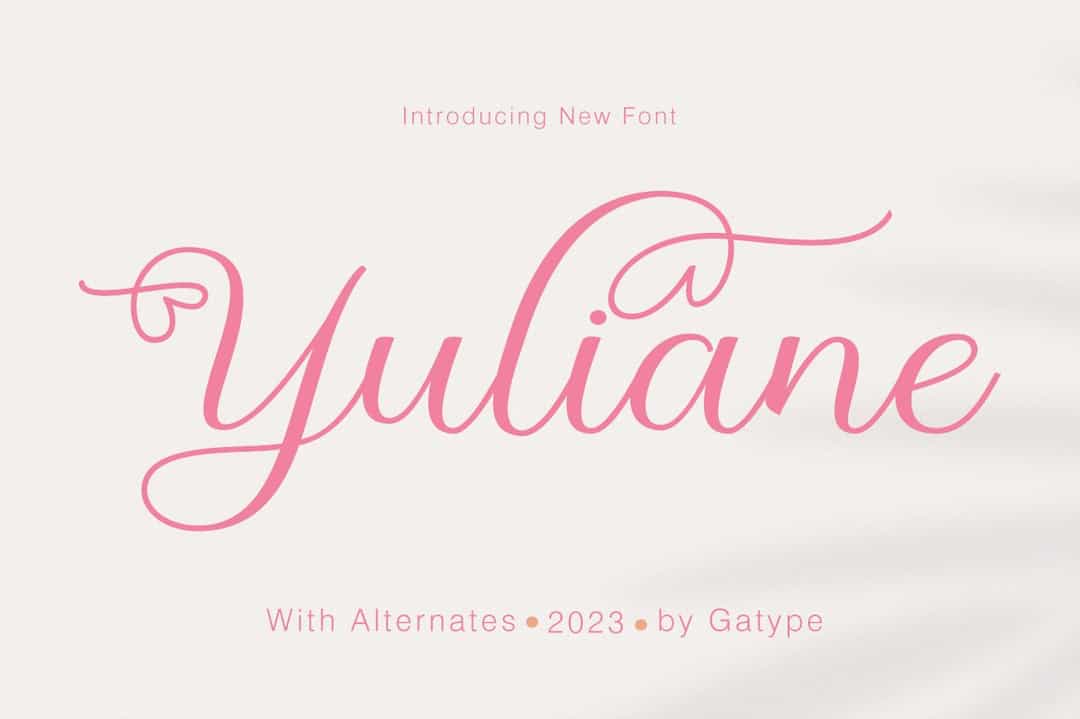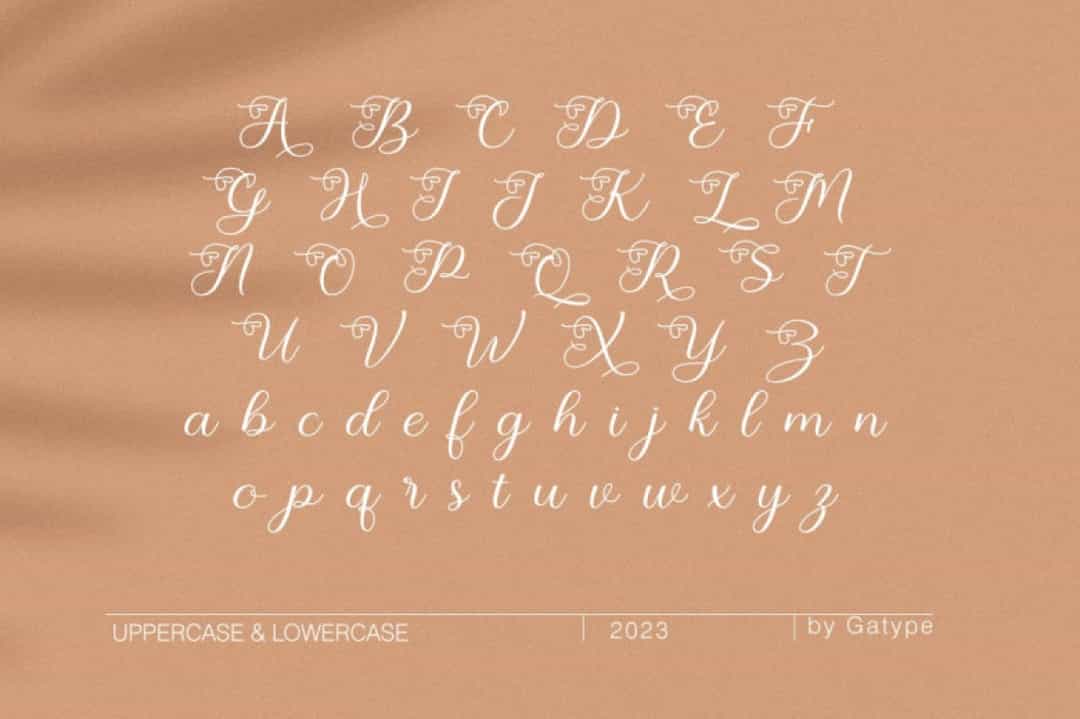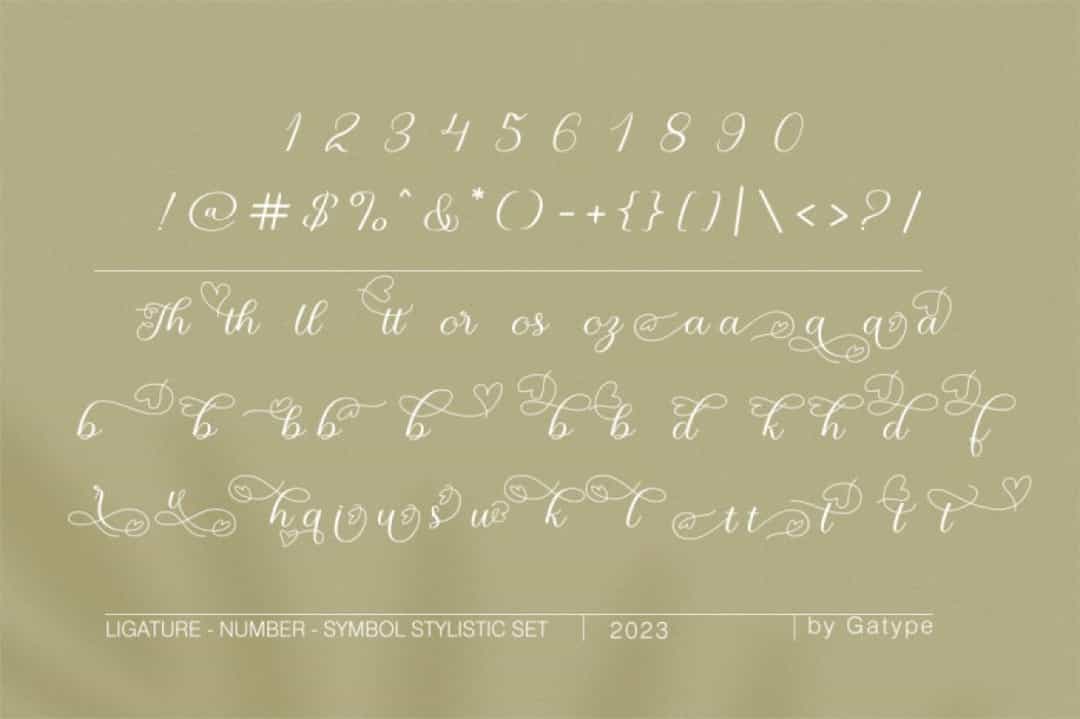
Yuliane is a script for calligraphy font that emulates an elegant yet simple natural handwritten stroke. This striking font gives your designs an instantaneous modern flair with its timeless modern designs and clean contemporary appearance, perfect for designs that need modernity without looking outdated.